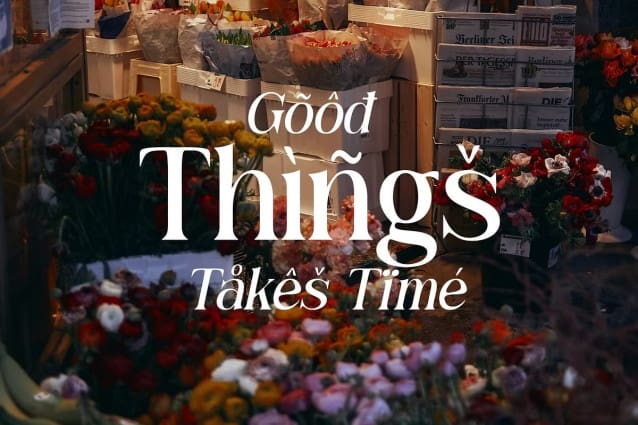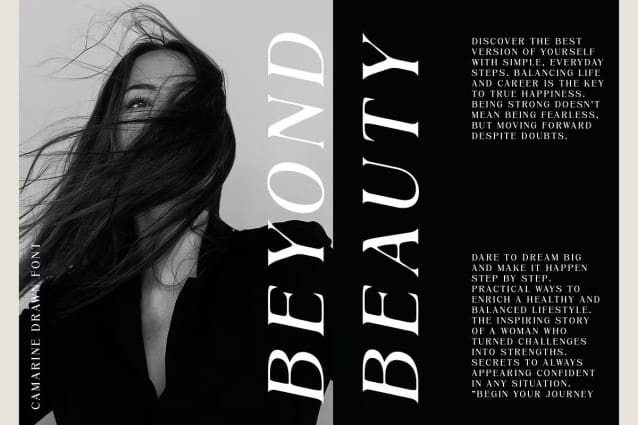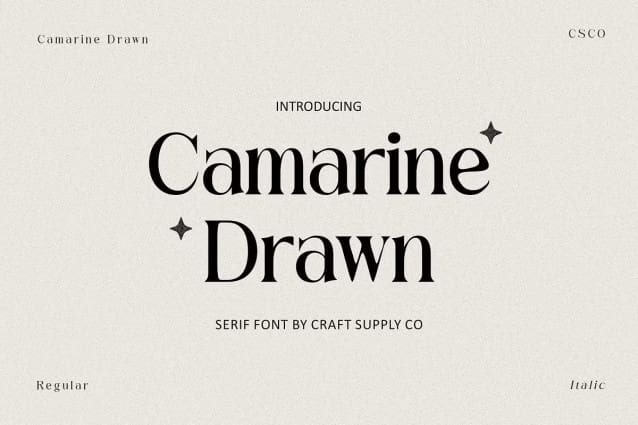
Camarine Drawn Font
Camarine Drawn Font is a modern serif font that artfully merges the timeless elegance of classic serifs with a creative, handwritten-inspired touch. This font features clean, streamlined letterforms that exude sophistication while incorporating smooth, irregular line details that add an organic and engaging quality. The result is a font that feels both refined and personal, making it an ideal choice for a variety of design applications.
Key Characteristics and Unique Style The unique characteristics of Camarine Drawn set it apart in the world of typography. Its balance of structured elegance and playful nuances creates a dynamic visual appeal that captivates the viewer. The drawn effect imbues each letter with a sense of warmth and artistry, as if crafted by hand. This thoughtful design invites connection and engagement, making it perfect for projects that seek to convey a sense of personality alongside professionalism.
Versatile Applications for Various Designs Camarine Drawn shines in a multitude of design contexts, including branding, invitations, and editorial publications. Its elegant yet approachable style makes it suitable for high-end branding that aims to foster an intimate connection with its audience. Whether you’re designing a wedding invitation, a chic business card, or a sophisticated magazine layout, Camarine Drawn enhances the aesthetic appeal of your work while maintaining clarity and readability.